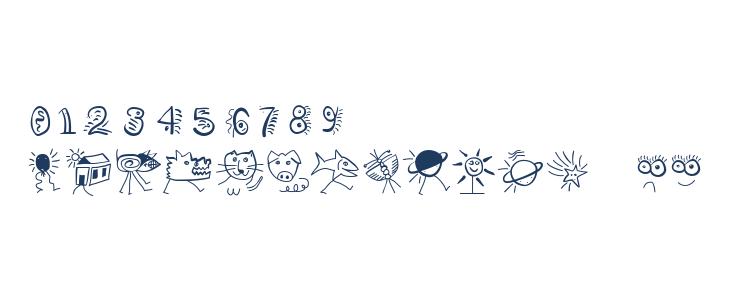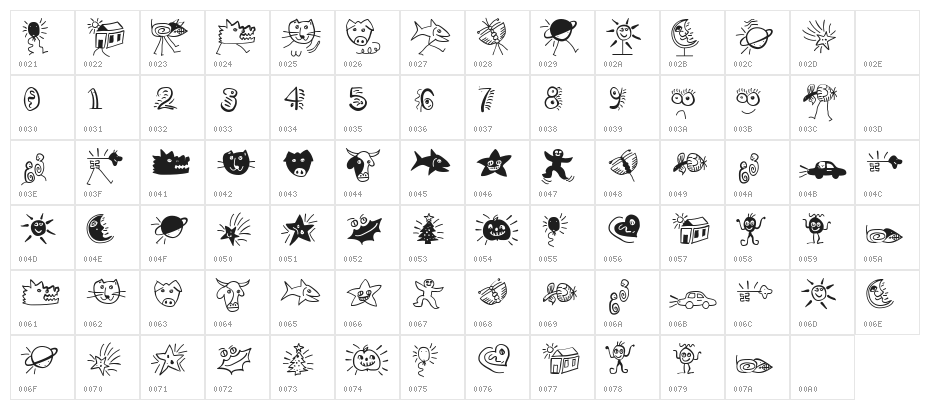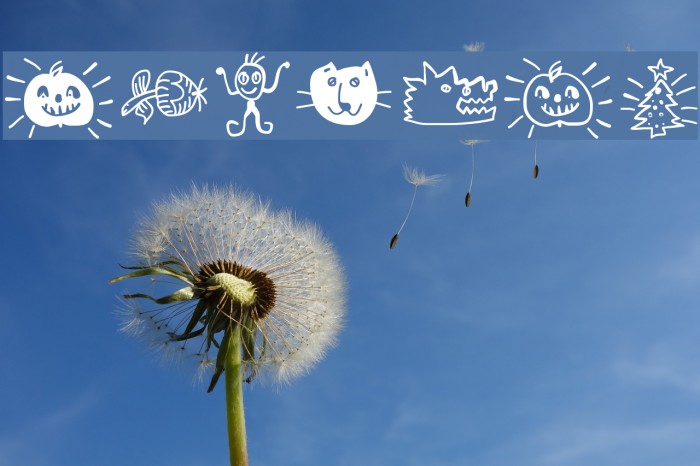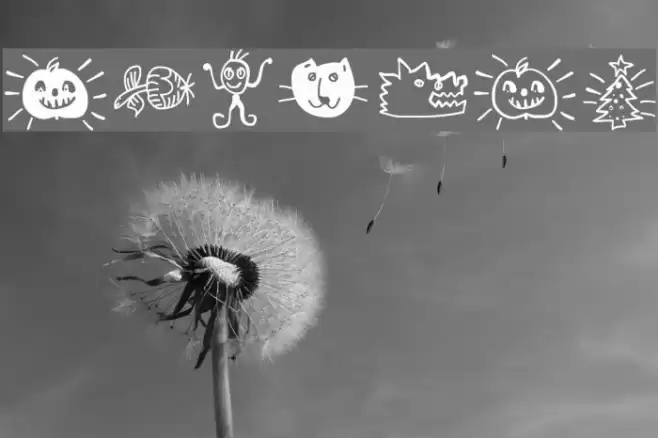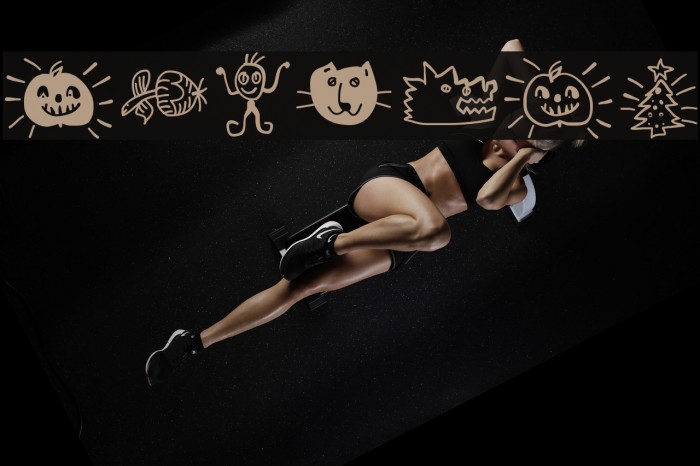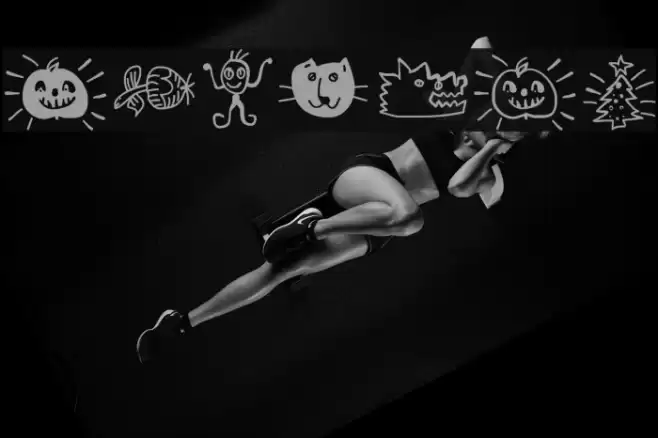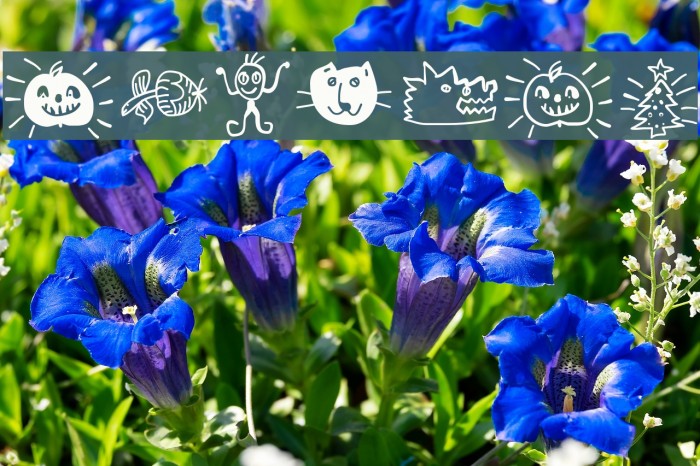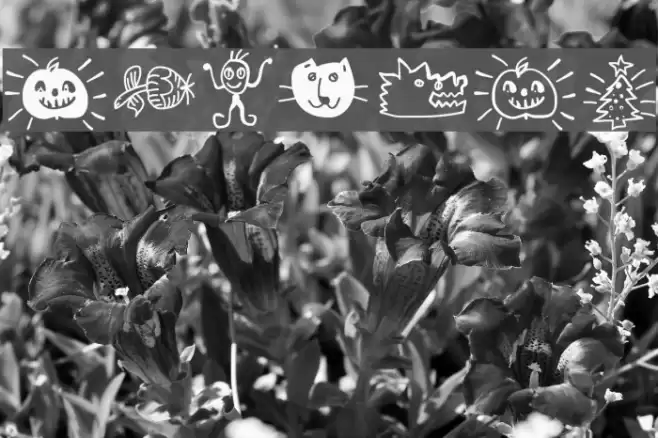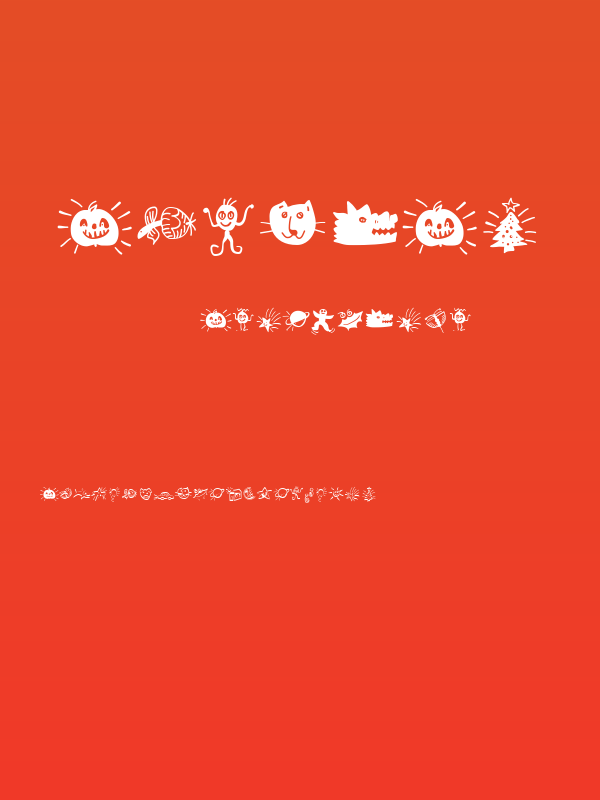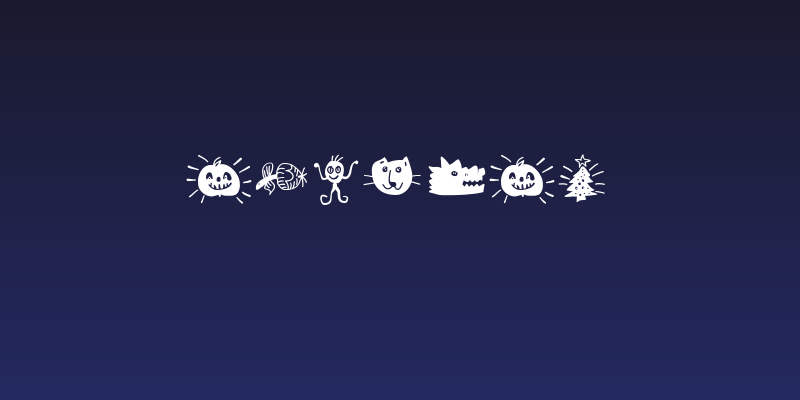
TixBats Font
TixBats Description
This font is a playful and whimsical collection of doodle-like symbols and characters. Each glyph is a unique illustration, ranging from animals and celestial bodies to festive icons and abstract shapes. The style is hand-drawn, with a casual and informal appearance that adds a sense of fun and creativity. The characters are bold and expressive, with varying line thicknesses that give them a dynamic and lively feel. This font is perfect for projects that require a touch of humor and imagination, such as children's books, greeting cards, or playful branding.
| Overall Style | Playful, Whimsical, Creative |
| Use Case | Decorative elements, Creative projects, Informal designs |
| Proposed Projects | Ideal for children's books, greeting cards, playful branding, and creative projects. |